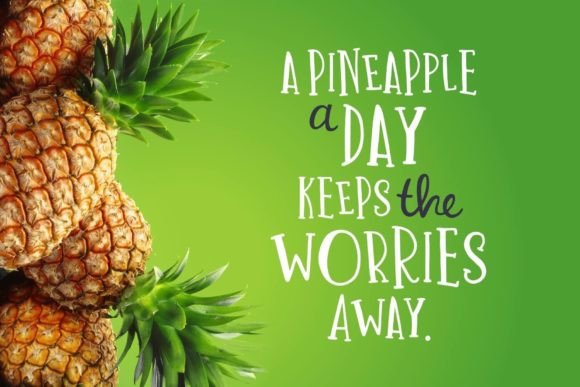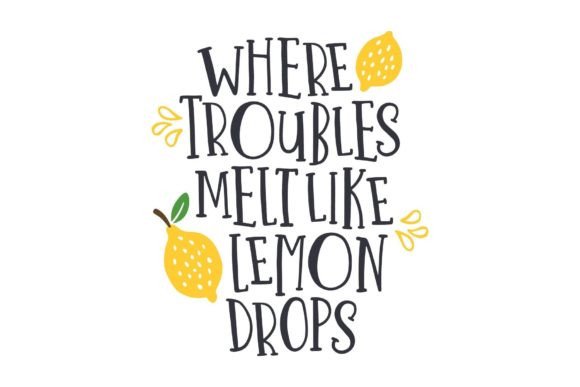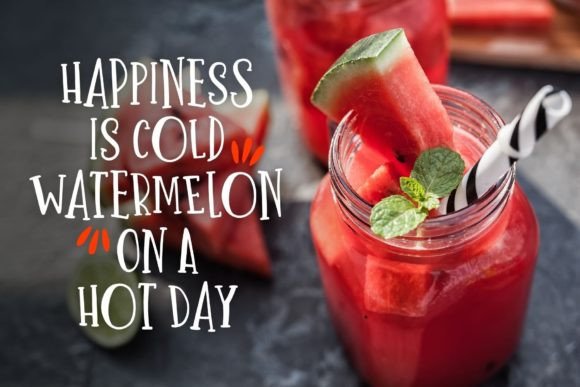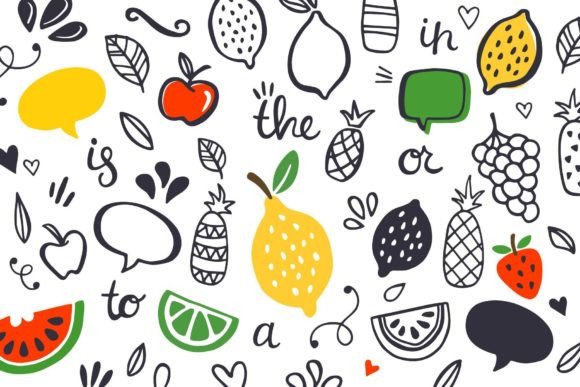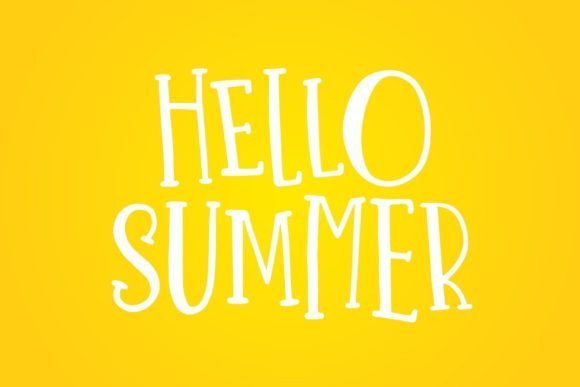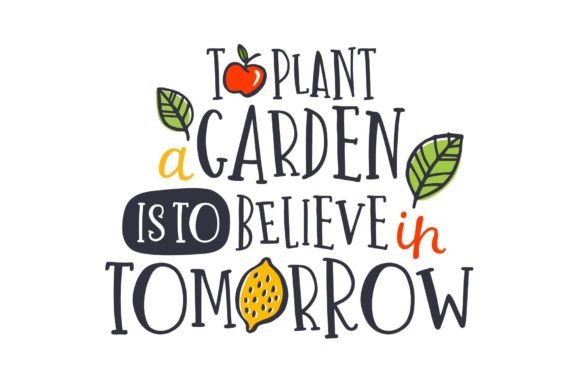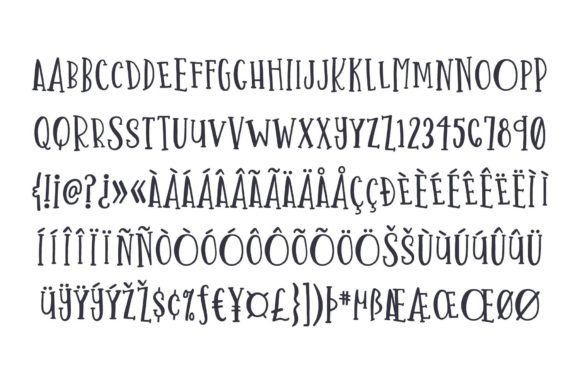
One in a Melon Font
One in a Melon is a light, fun, and lively font designed to bring a playful touch to your summer projects. Whether you’re working on invitations, posters, or any creative endeavor that captures the spirit of summer, this font adds a whimsical and cheerful vibe.
The all-caps slab serif style of One in a Melon ensures readability and legibility, making it suitable for various design sizes. The bouncy and playful nature of the font adds character, making it a great choice for larger headings, titles, or any text where you want to convey a sense of joy and light-heartedness.
What makes One in a Melon even more versatile is the inclusion of a set of fruit doodles, swashes, and catchwords in .png, .ai, and .psd formats. These additional design elements allow you to enhance your creative projects with extra flair. Whether you want to decorate your text with fruity accents or add stylish swashes for a decorative touch, these elements provide a toolkit for customization and creative expression.
The font’s suitability for summer projects makes it an excellent choice for a variety of themes such as beach parties, picnics, or any event associated with the warm and carefree atmosphere of summer. One in a Melon is crafted to evoke a sense of fun and celebration, making it a perfect companion for your creative endeavors during the sunny season.
In summary, One in a Melon goes beyond being just a font; it’s a complete design kit that brings a light, fun, and bouncy aesthetic to your summer projects. Whether used for headings, titles, or decorative elements, this font, coupled with its fruit doodles and swashes, offers a delightful and versatile solution for capturing the essence of summer in your designs.